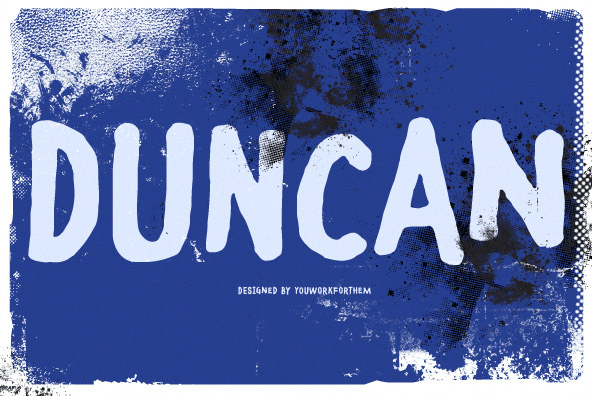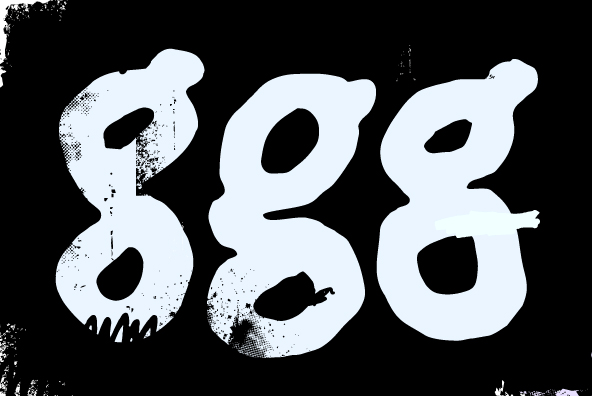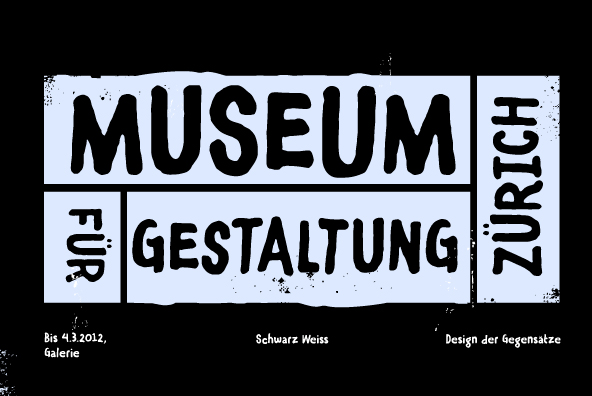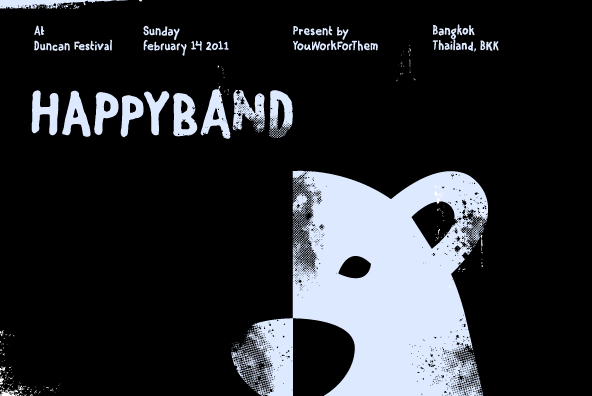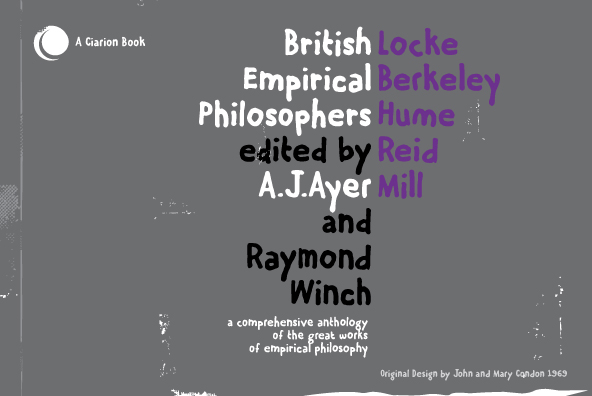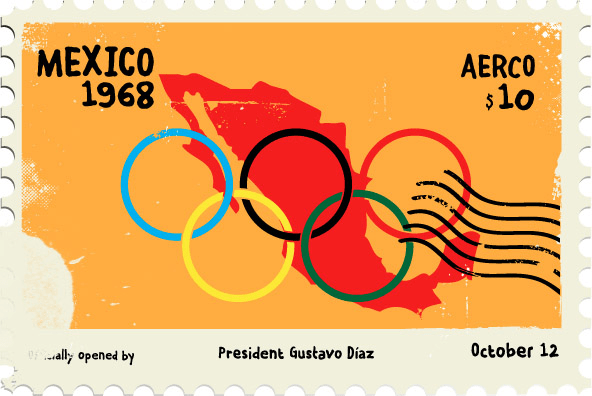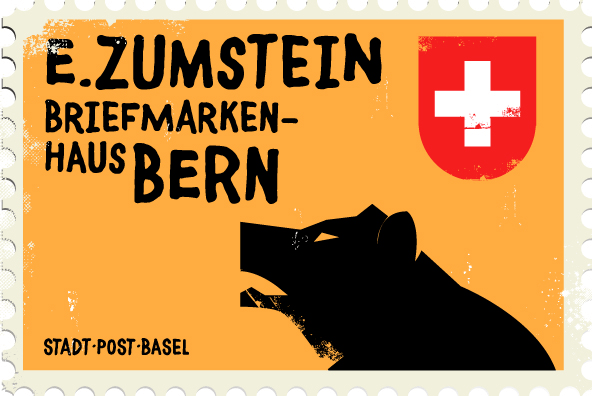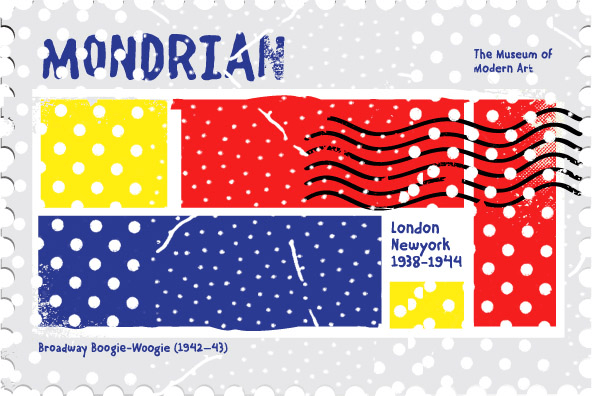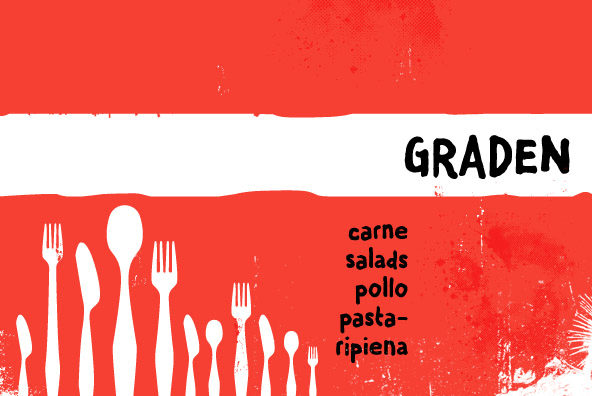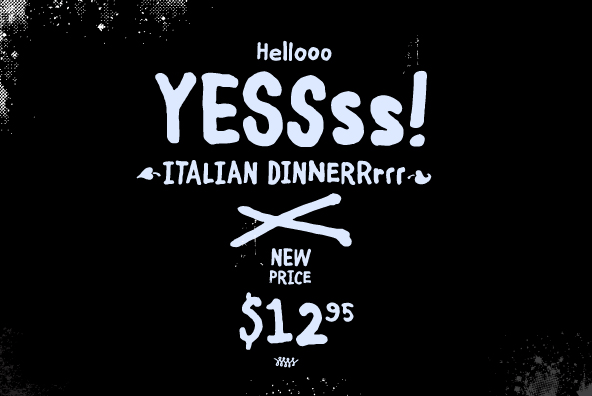
YWFT Duncan
Once again, the Brazilian type ninjas at PintassilgoPrints have slipped unseen into our mountain fortress and left behind a fierce 26-finger death punch. YWFT Duncan is the latest addition to our hand-drawn house of champions, but this one has the added value of working well in both headline and content settings. Well-suited for both short phrases and long blocks of copy, YWFT Duncan also makes for unique, jumbled combinations that create a strikingly organic effect when set. Originally a handset design, this quirky typeface is now fully empowered with appropriately glorious OpenType features, and even though playful, it still brings the serious when necessary. 354 glyphs, Contextual Alternates, two Stylistic Sets (available for use in Illustrator and InDesign), Ornaments and Ligatures.
Designed by YouWorkForThem and PintassilgoPrints.